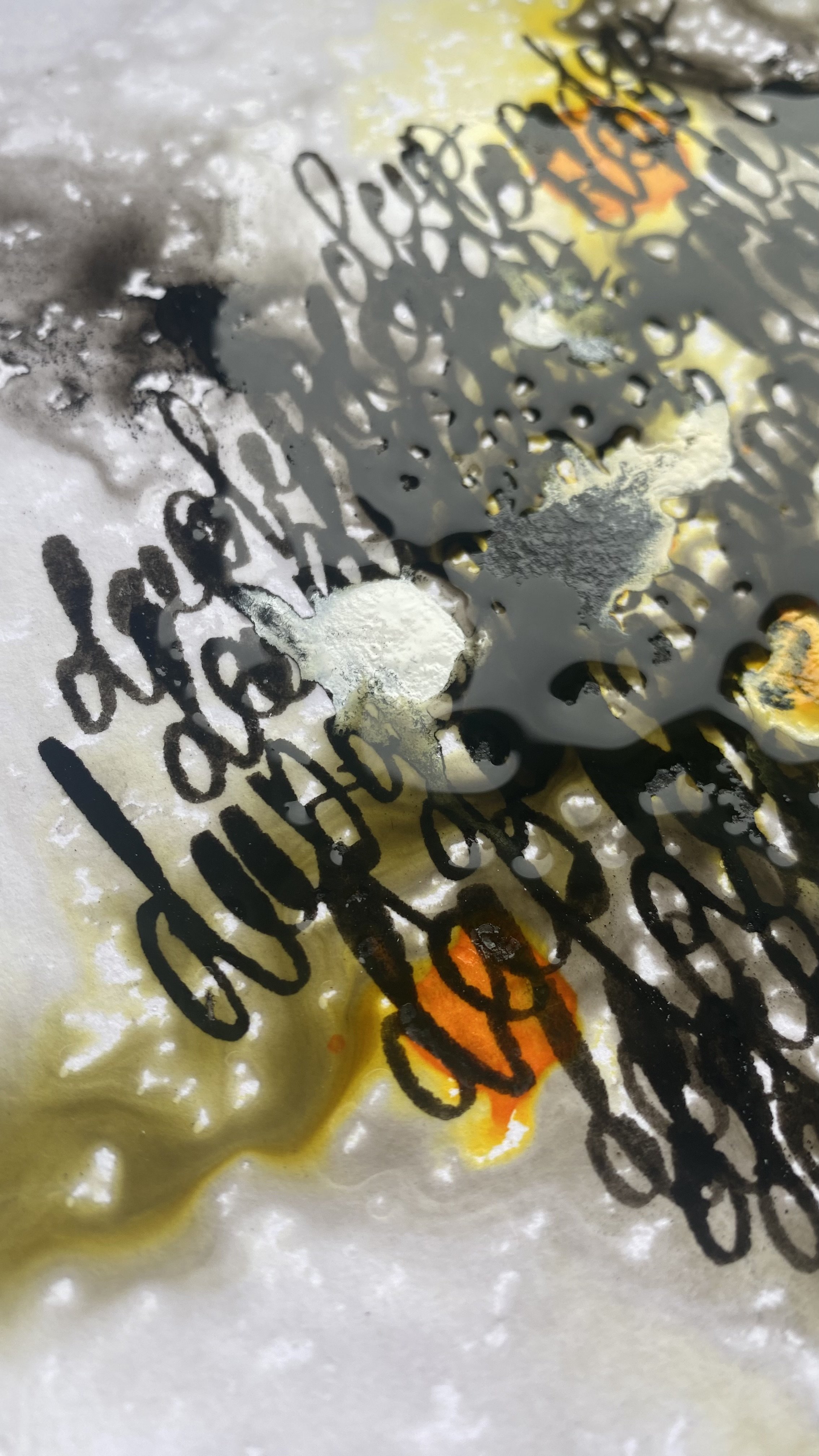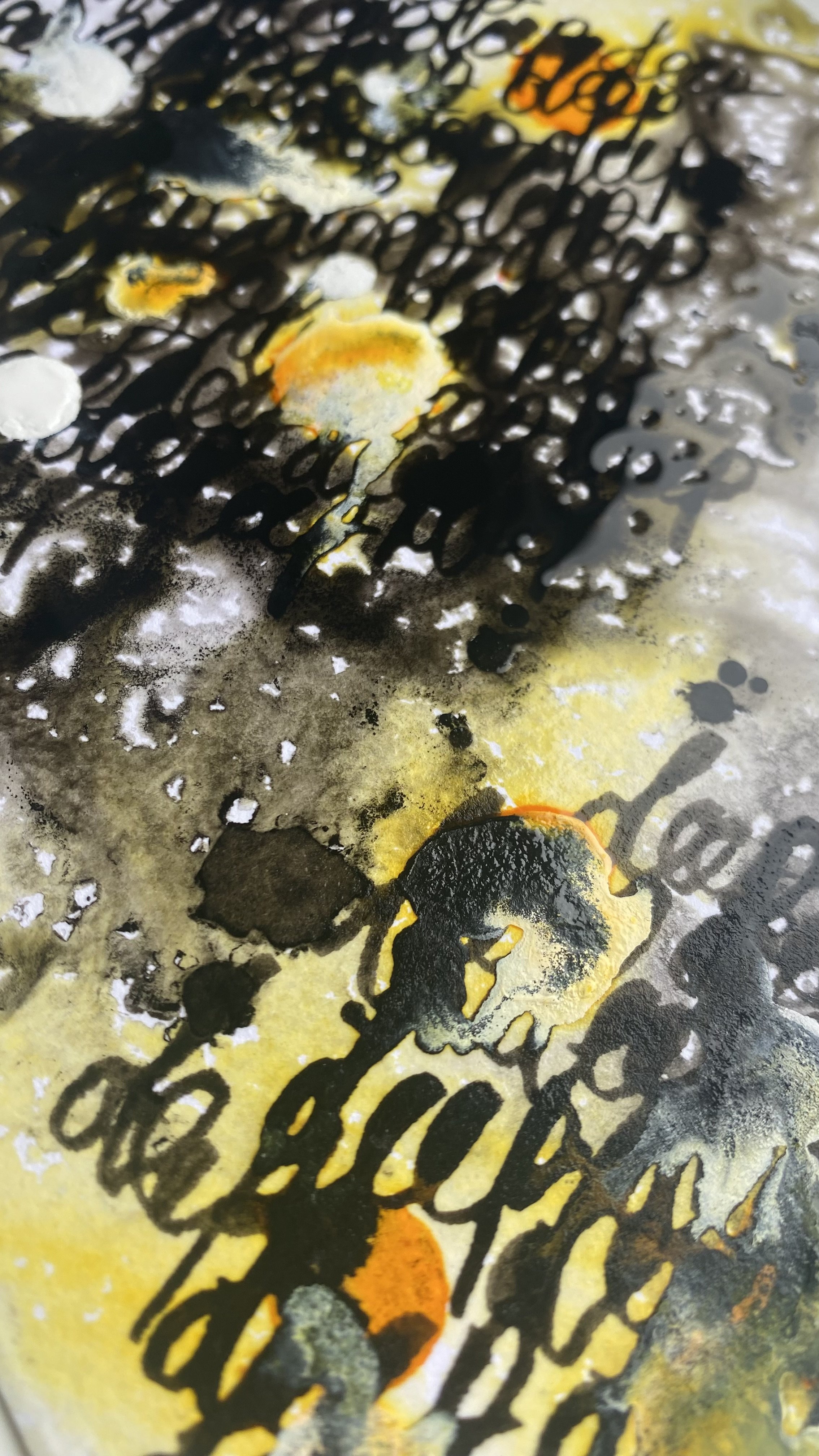
ELEANOR CURTIN | Deep
ARTIST | Eleanor Curtin
BASED IN | UK, Ireland
TITLE | Serenity
Inspired by the rockpools at the Giant’s Causeway in Northern Ireland. The deep (another name for the sea) holds layers of treasures and secrets, depicted in my artwork by the floating layered elements. The word "deep", written with a folded-pen, form textures and patterns.
MEDIUM | Watercolor and bistre inks on paper
About the artist
A graphic designer, a potter and currently an art teacher, Eleanor started her calligraphy journey with markers, brush and the pointed pen and loves experimenting with all tools and media. She pursues her love of calligraphy through online classes, hosting calligraphy workshops, and meeting other pen enthusiasts through envelope exchanges. Eleanor also does calligraphy commercially, combining her writing with watercolour illustrations. Her calligraphy business has served clients such as La Mer, Molton Brown, Jo Malone and Rituals Cosmetics.